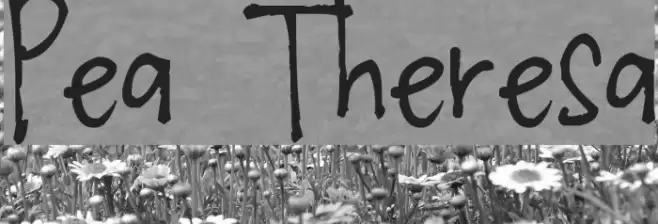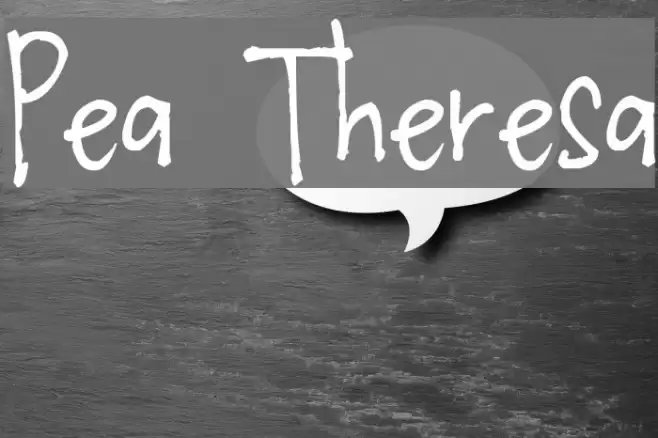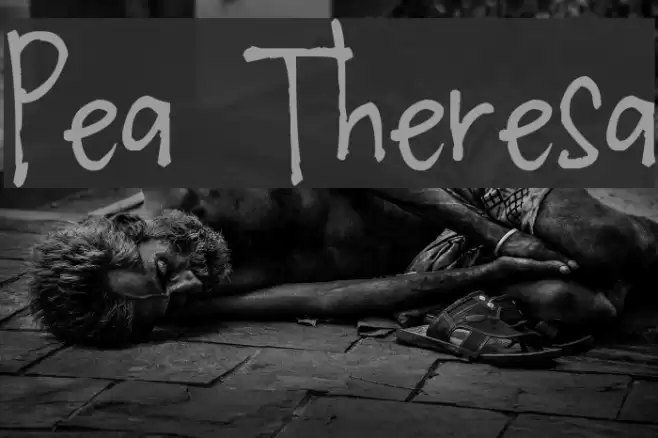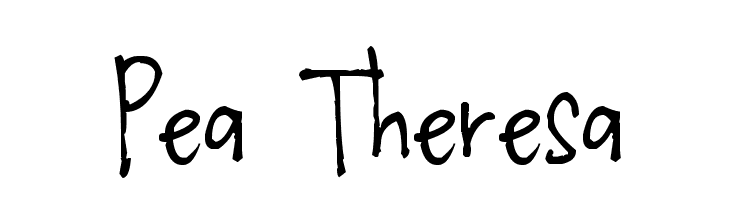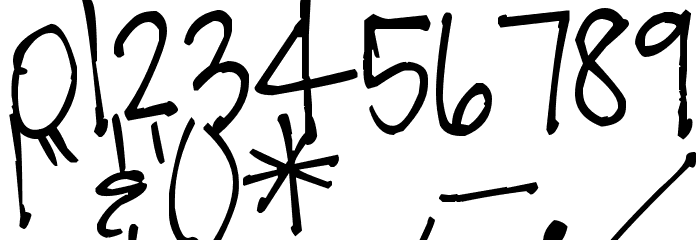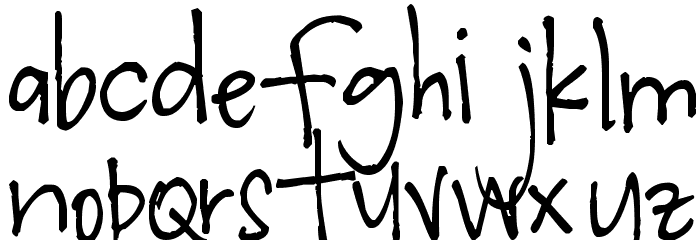
Pea Theresa
This font exudes a playful and casual handwritten style, characterized by its uneven strokes and slightly irregular letterforms. The uppercase letters are bold and expressive, while the lowercase letters maintain a consistent flow, adding to the informal aesthetic. Numbers and special characters follow the same whimsical design, making the font versatile for creative projects. The overall appearance is reminiscent of a personal note or a doodle, giving it a friendly and approachable vibe.
A playful, handwritten font with bold, uneven strokes and a casual style.
- Proposed Projects: Ideal for greeting cards, children's books, personal blogs, and informal branding.
- Overall Style: Casual, Playful
- Use Case: Headlines, Informal text, Creative projects